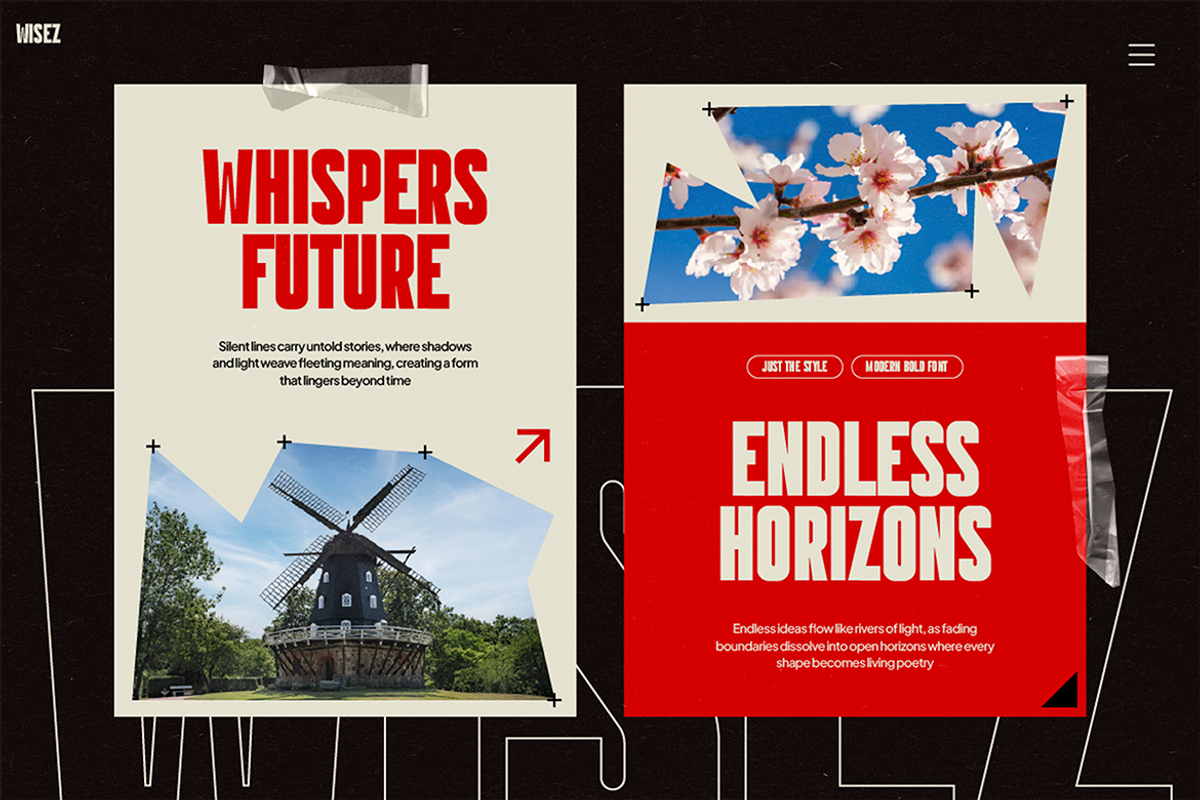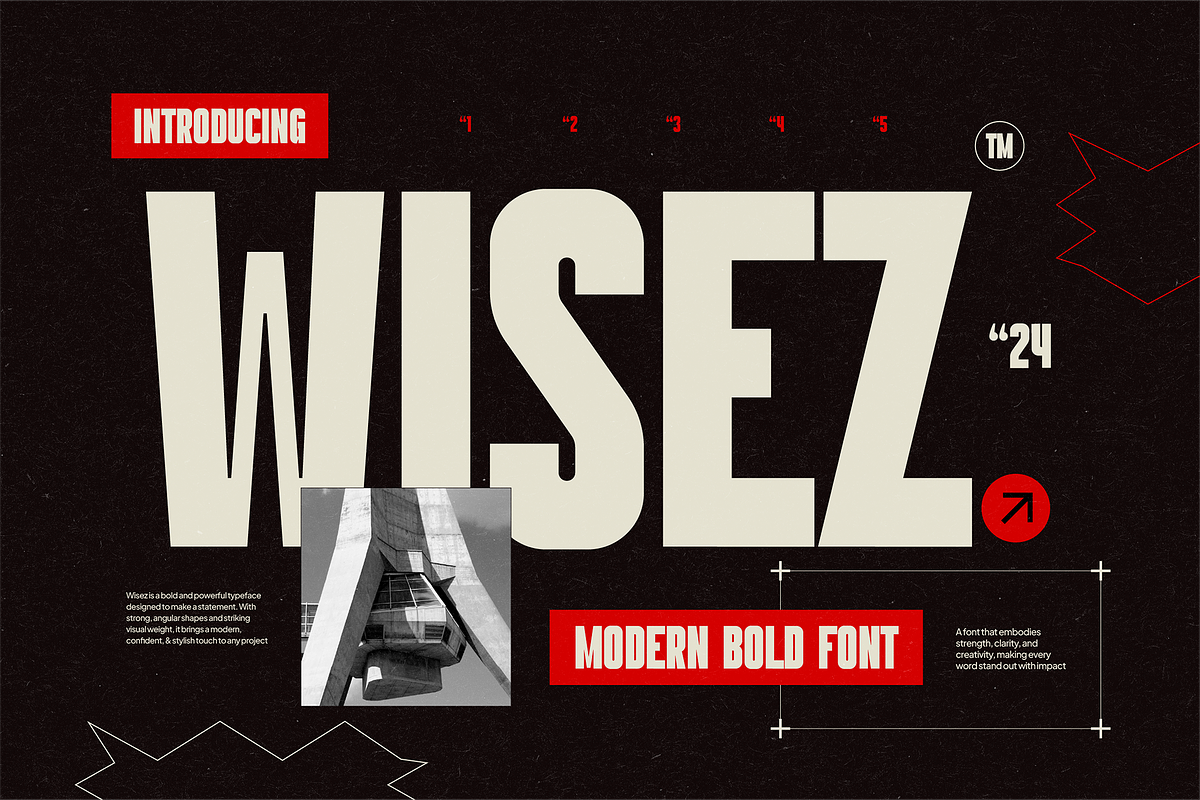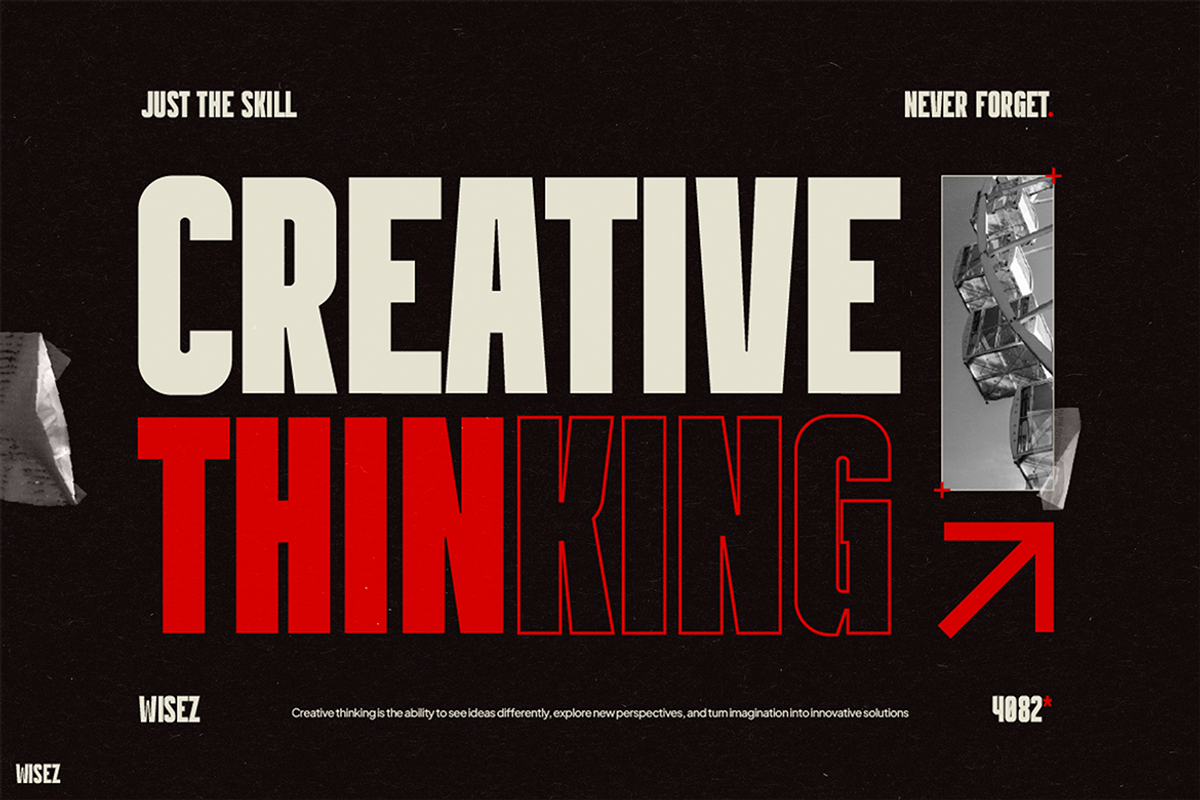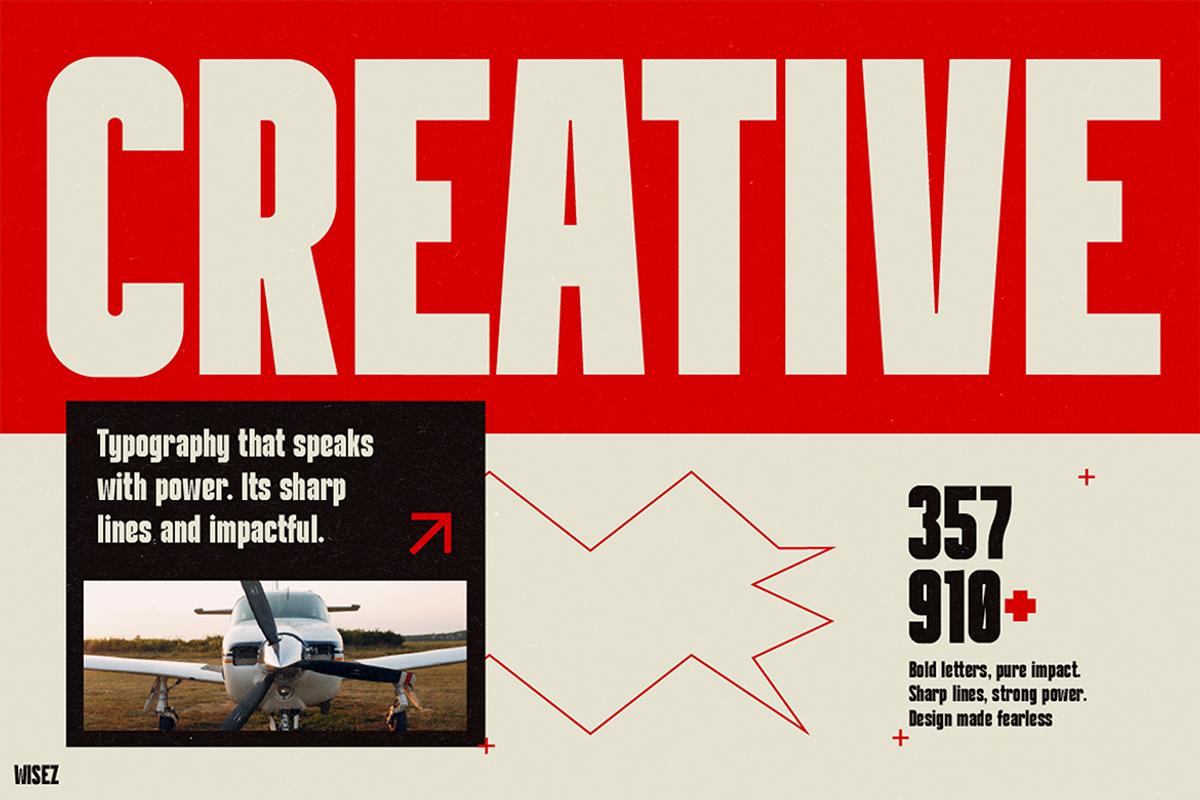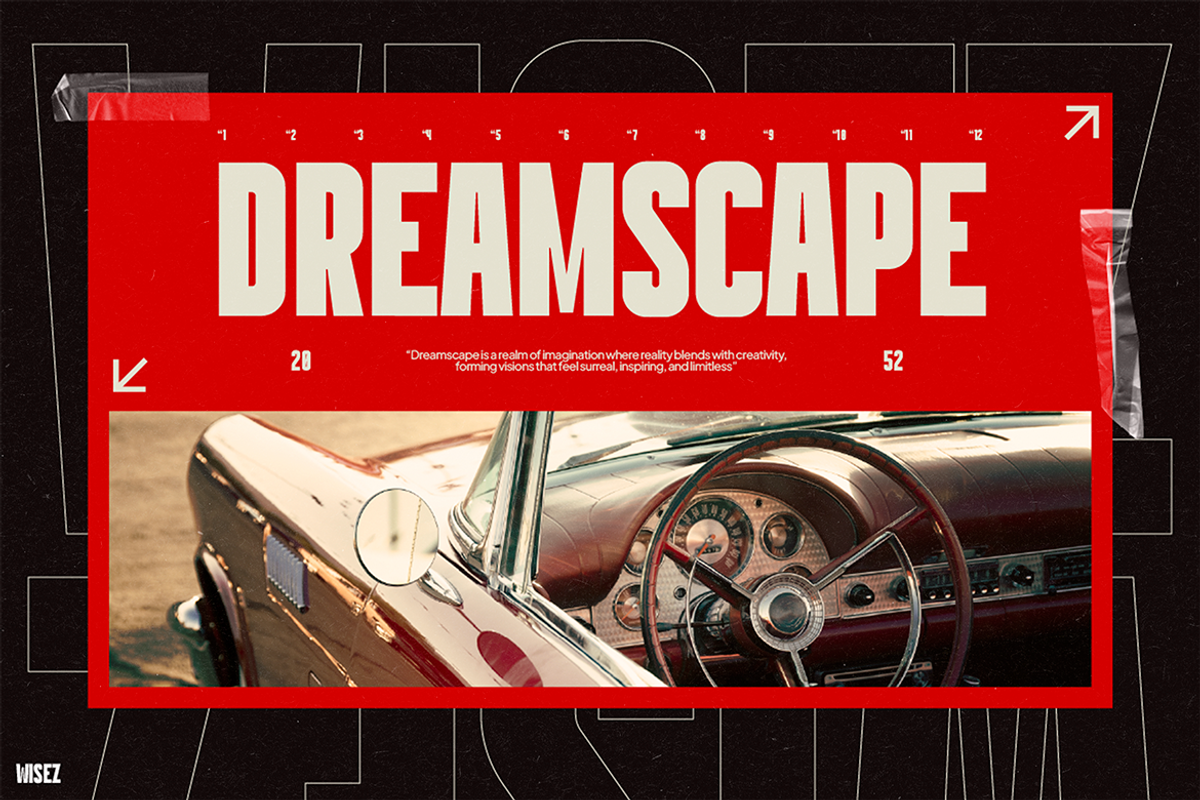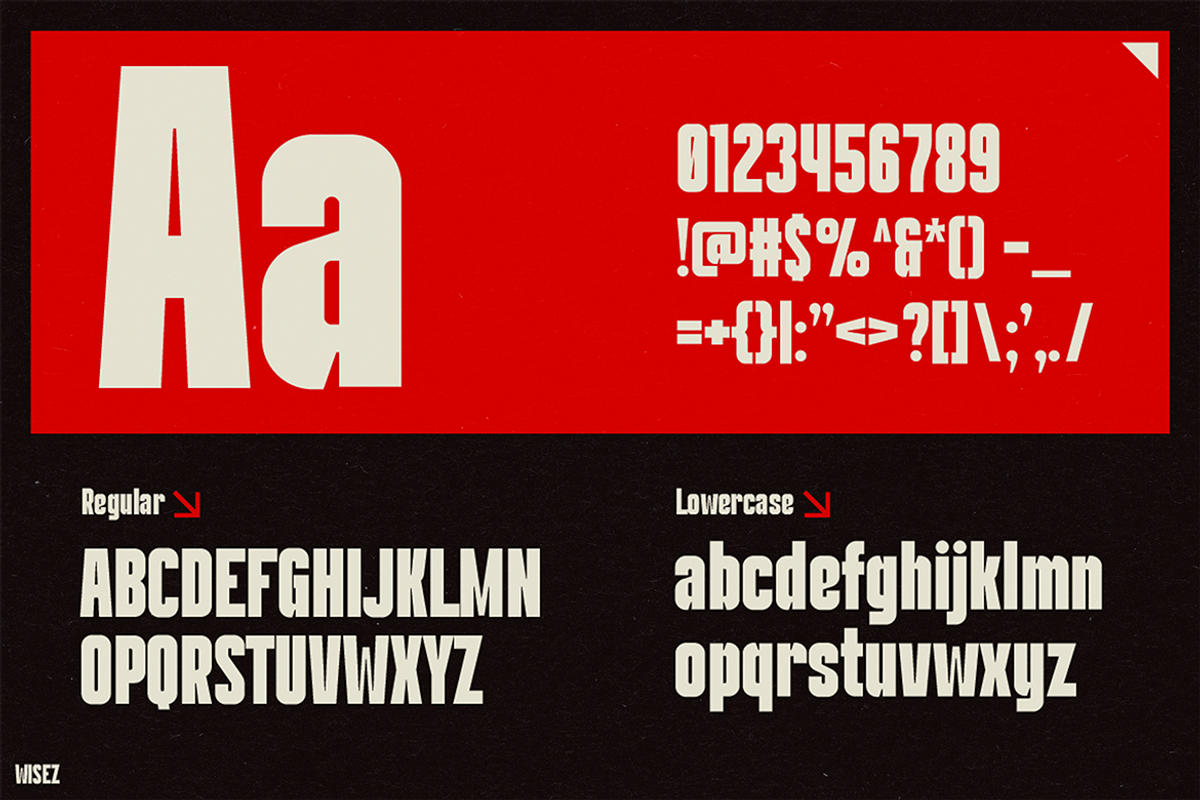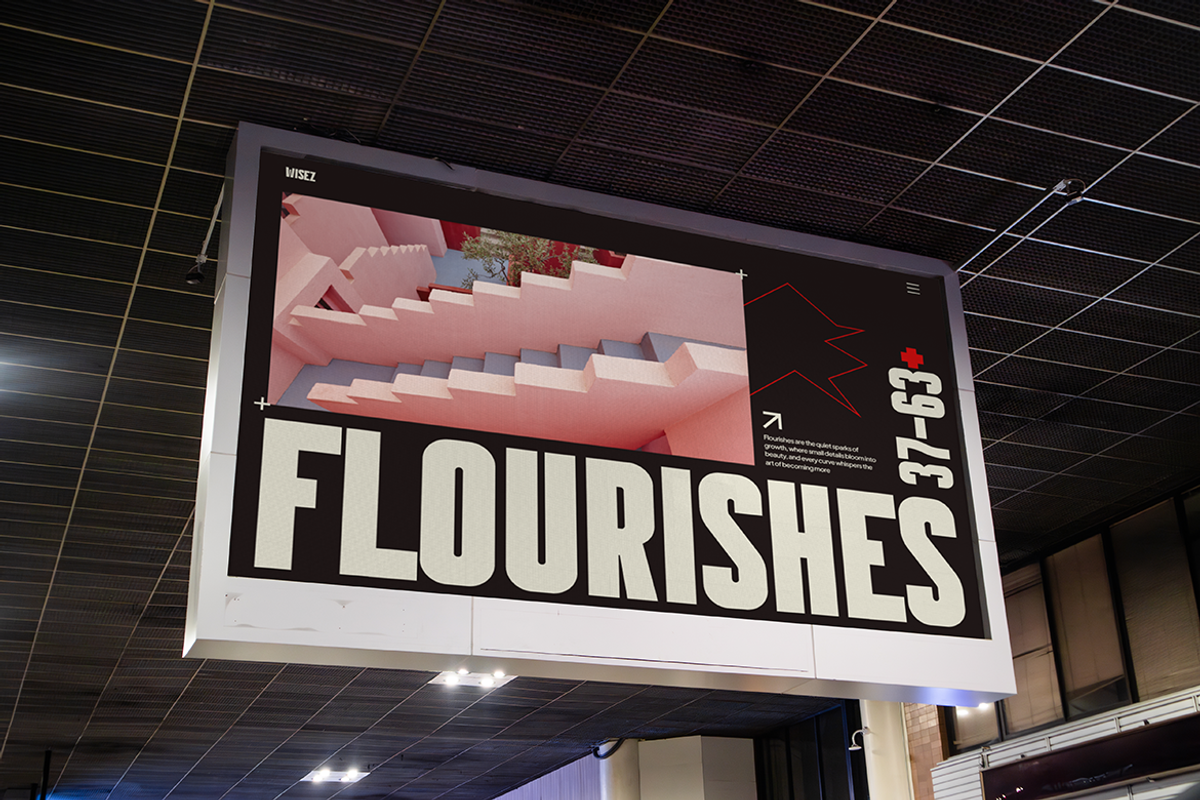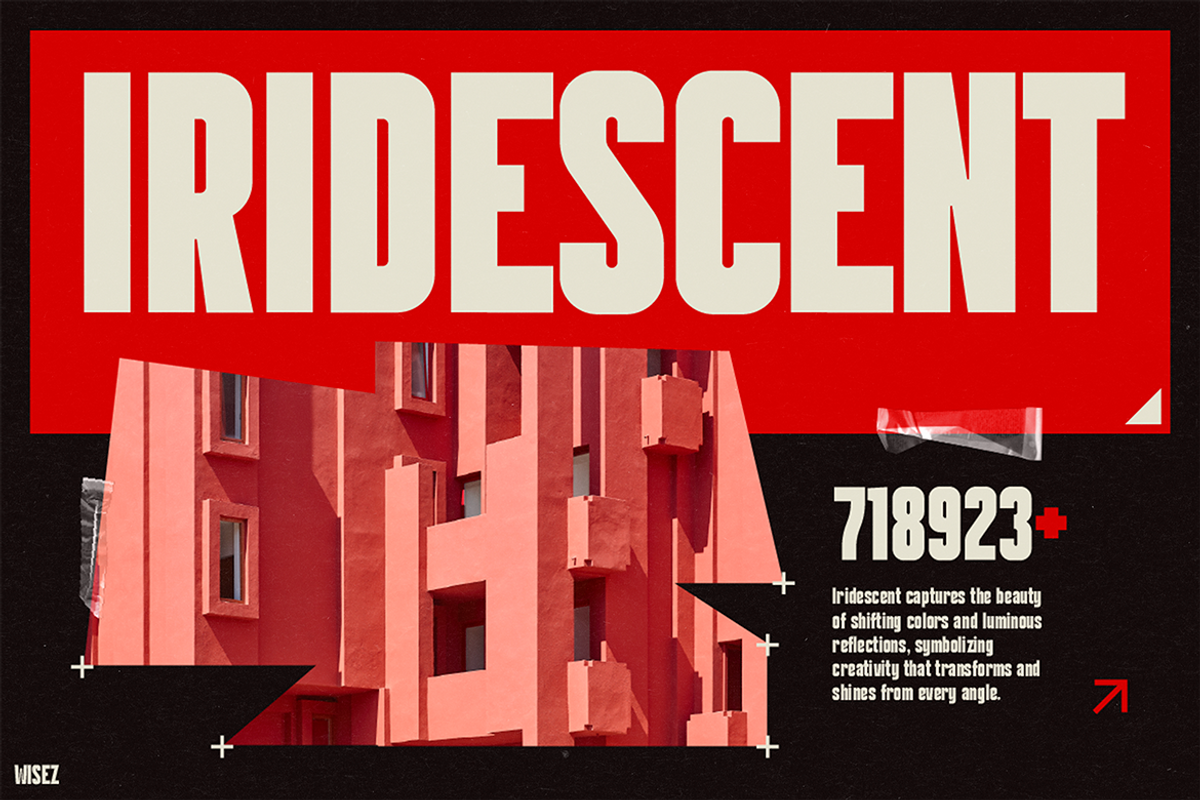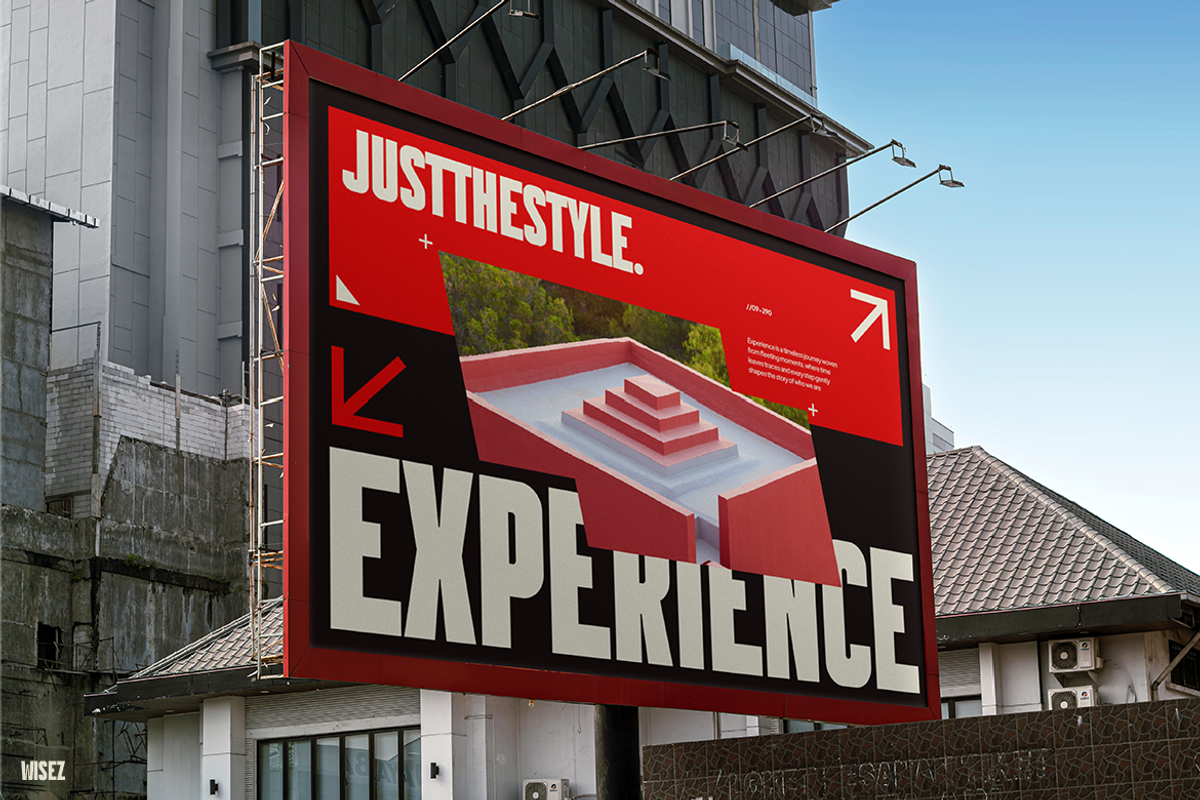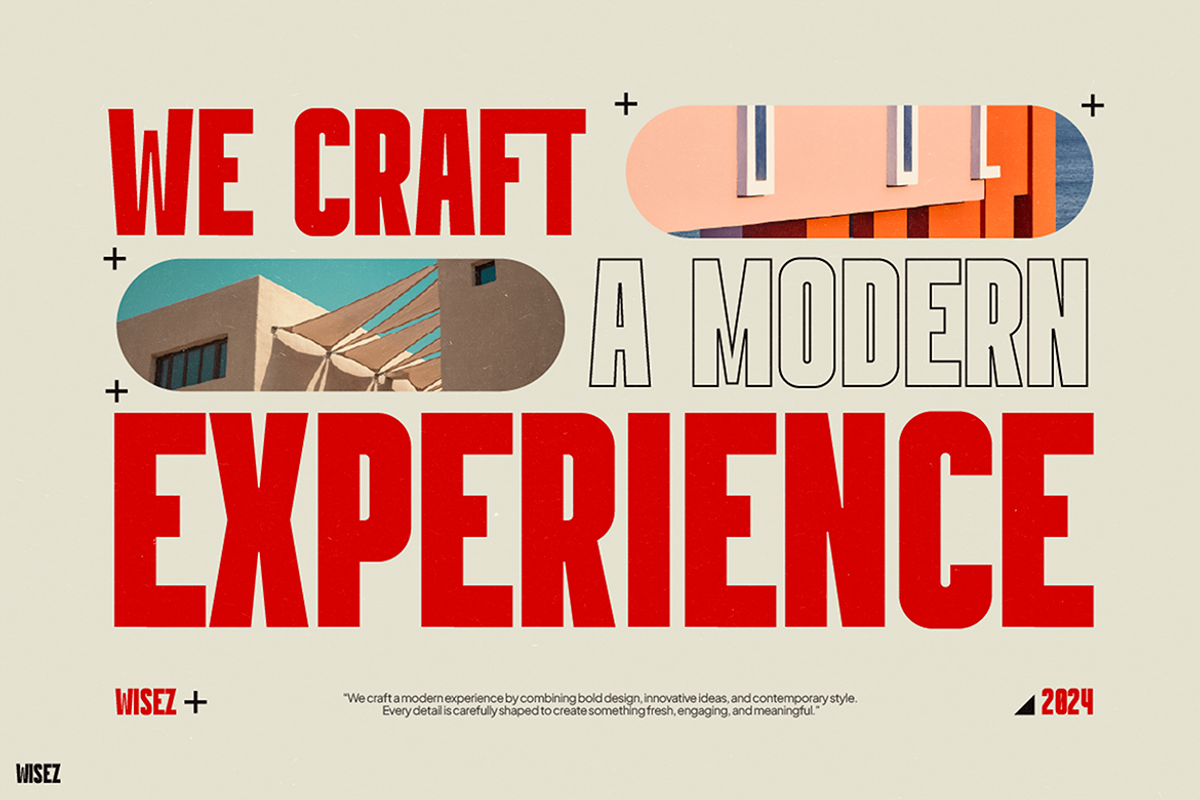
WISEZ
Instagram Font WISEZ is more than just a typeface—it’s a bold declaration of creativity and style. Designed with sharp edges, strong curves, and daring proportions, this modern bold font turns every word into a statement. Moreover, its unique aesthetic lies in the balance between power and elegance, making it an essential tool for anyone who wants their designs to feel confident, contemporary, and impossible to ignore.
What makes Instagram Font WISEZ stand out is its versatility. Not only do the bold letterforms give an instant sense of authority, but the clean structure also keeps everything readable and sleek. Therefore, it becomes the perfect choice for designers who want both function and beauty in one typeface. In addition, it works equally well for editorial layouts, posters, social media graphics, and brand identities. No matter where you use it, this font guarantees impact and consistency.